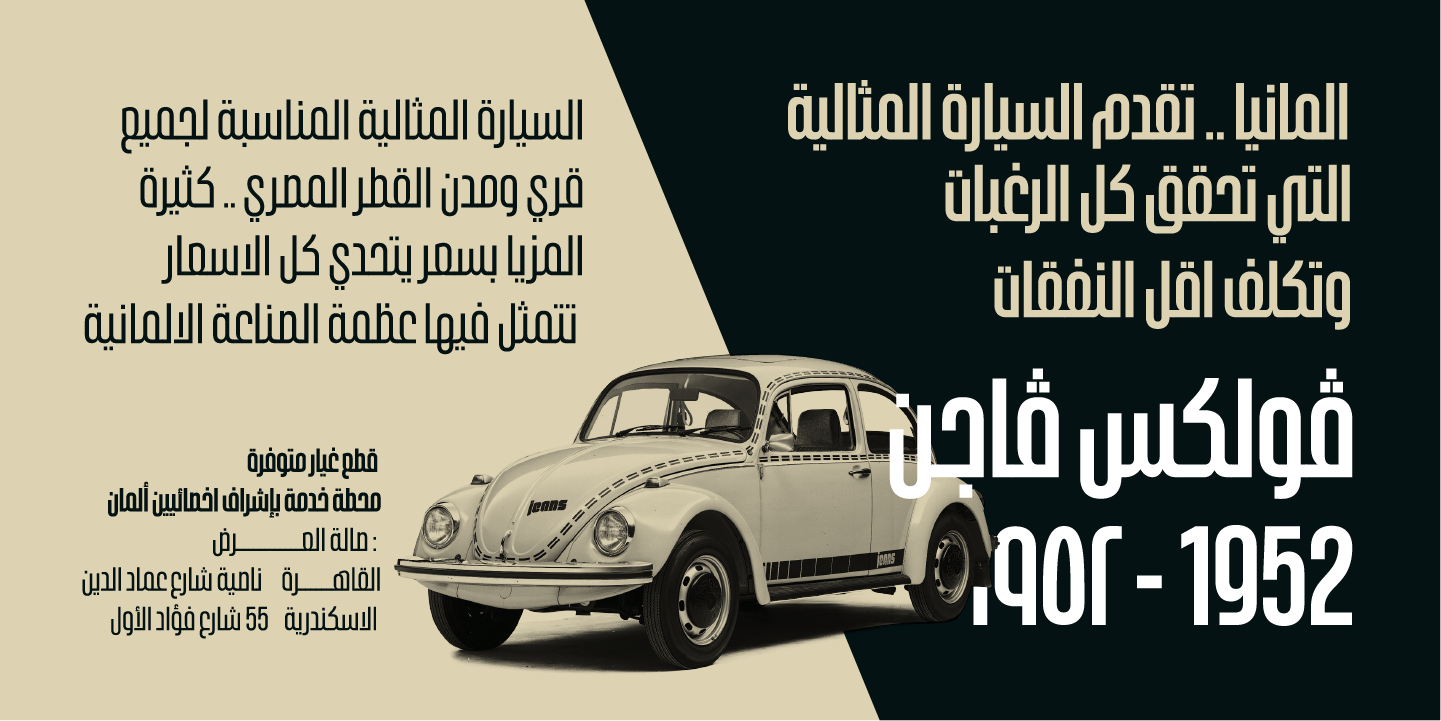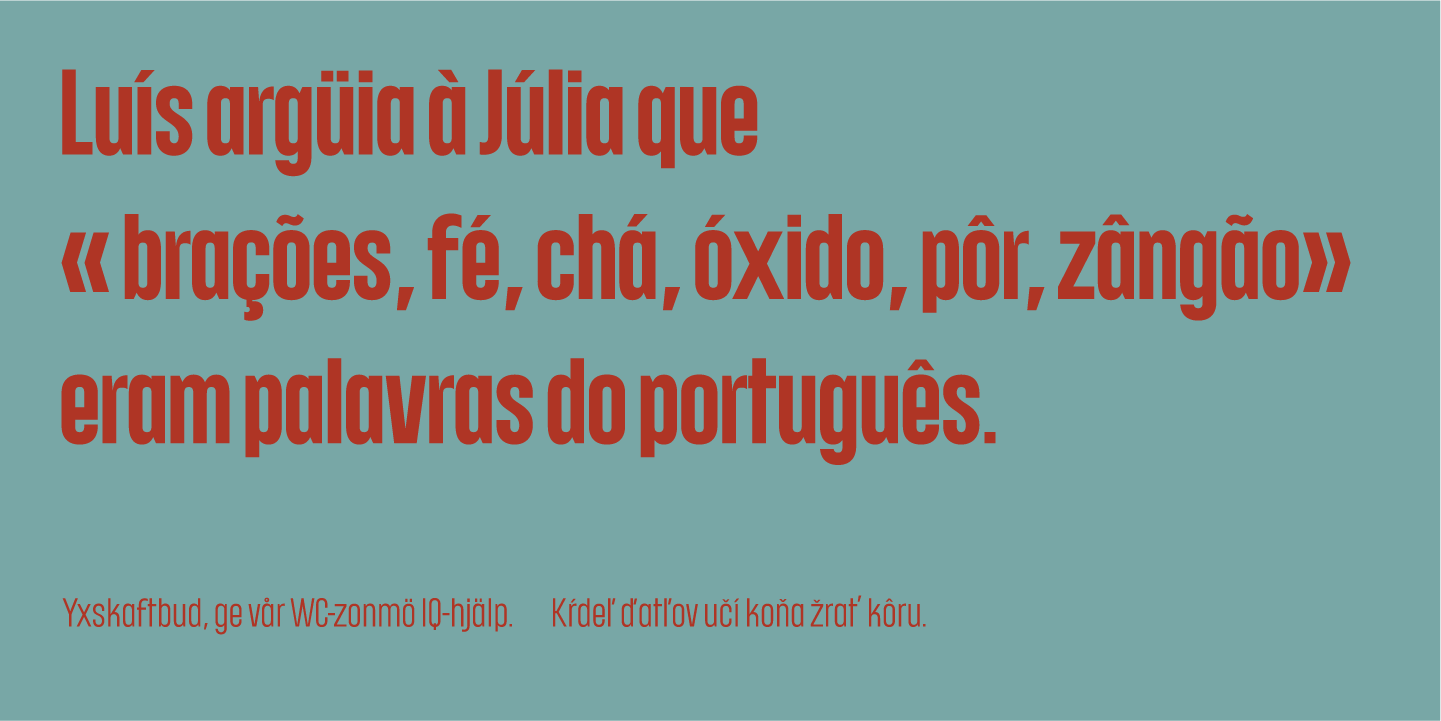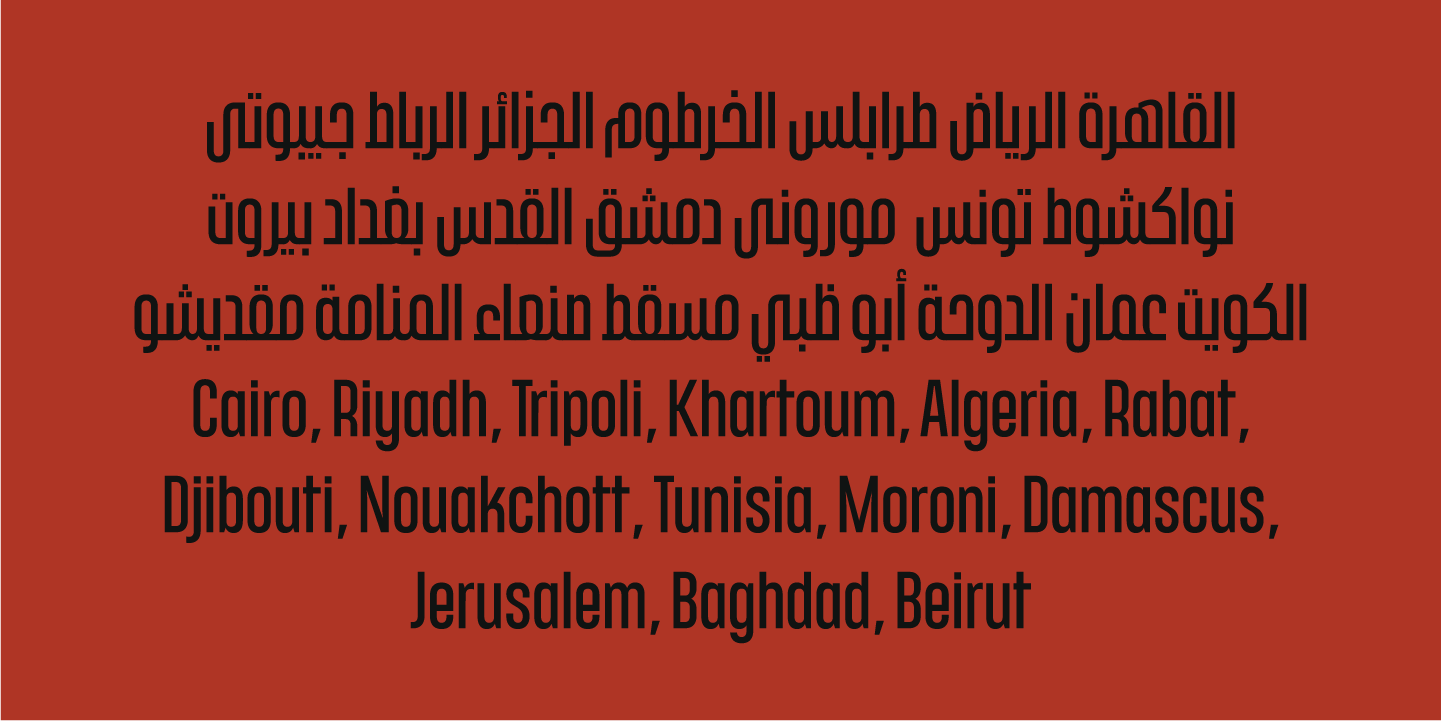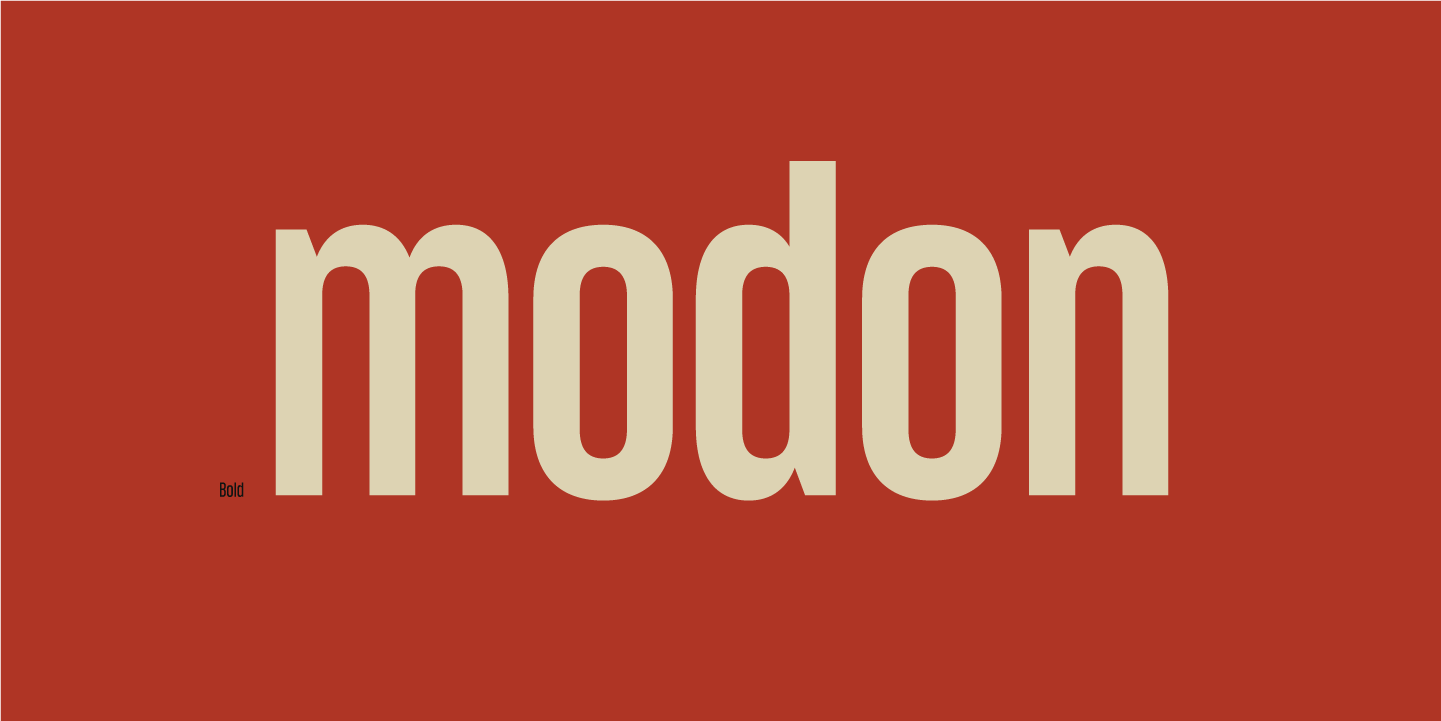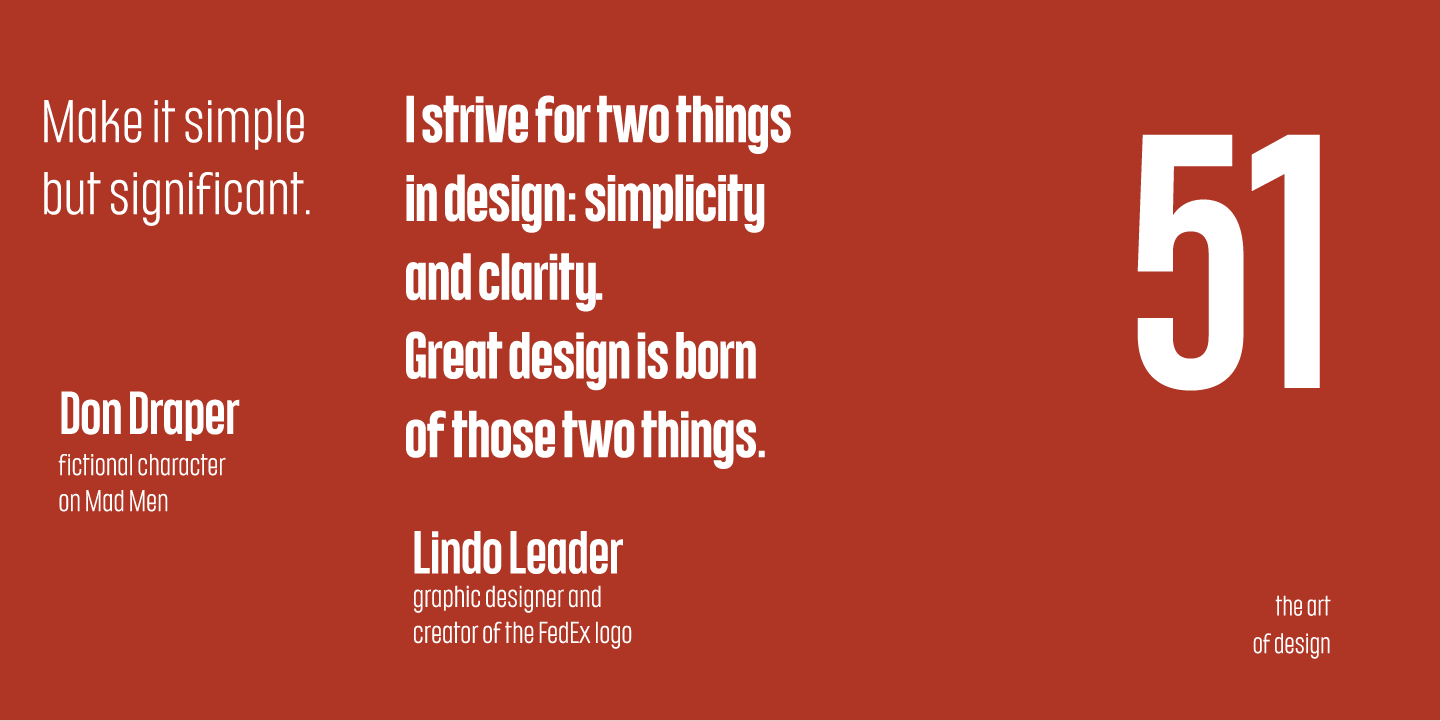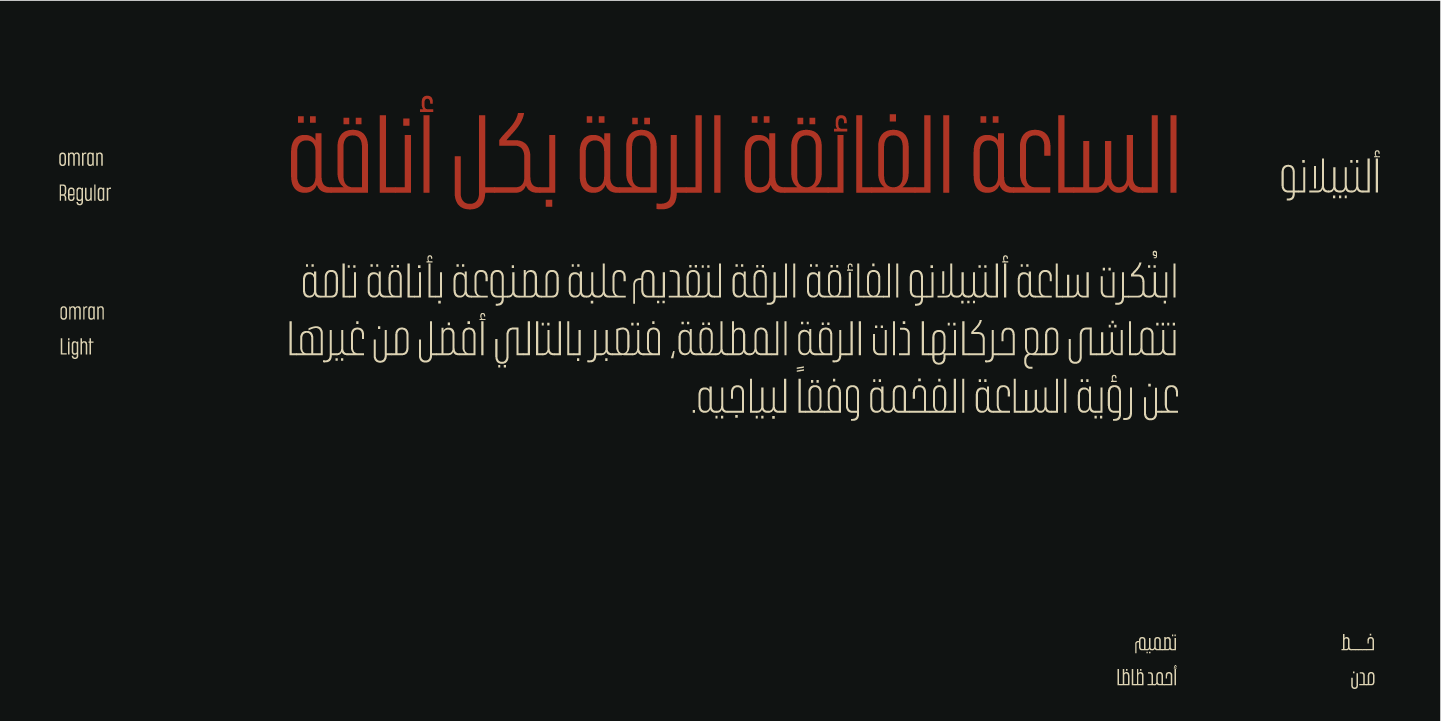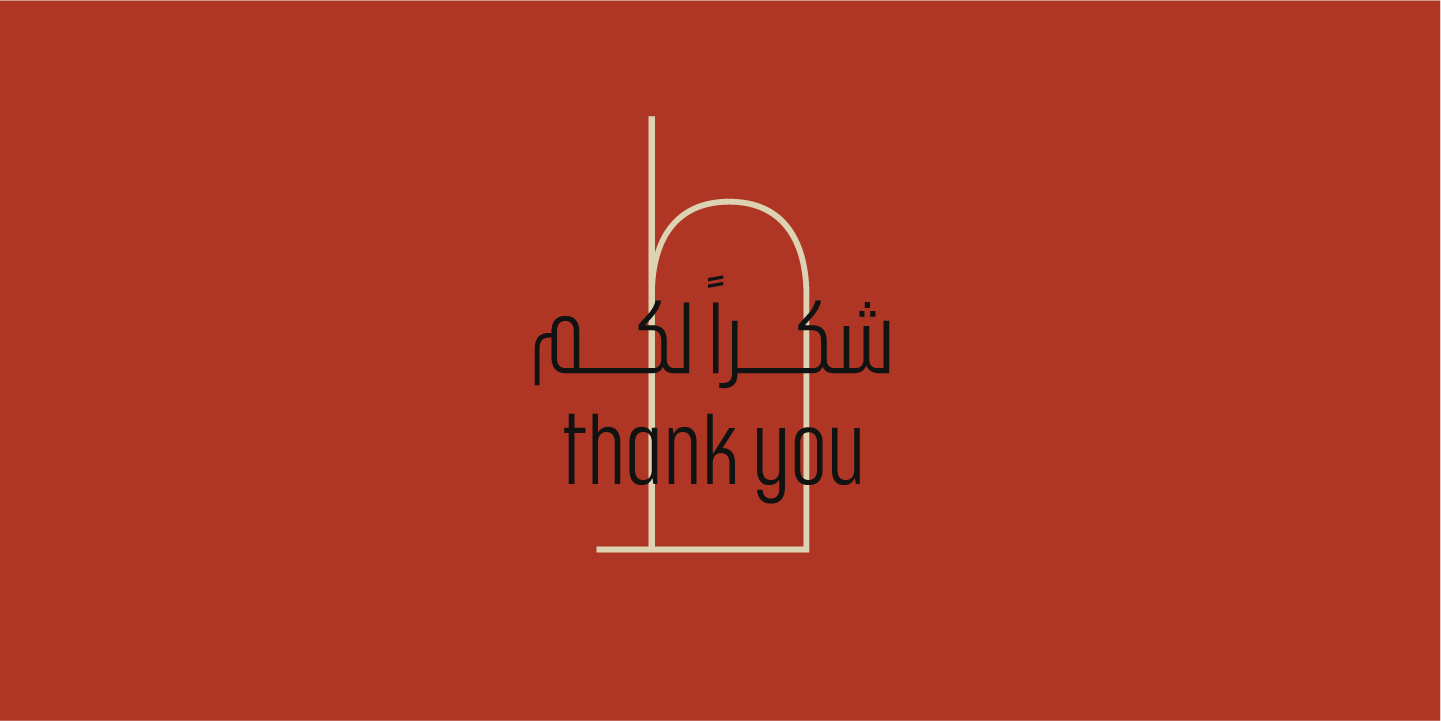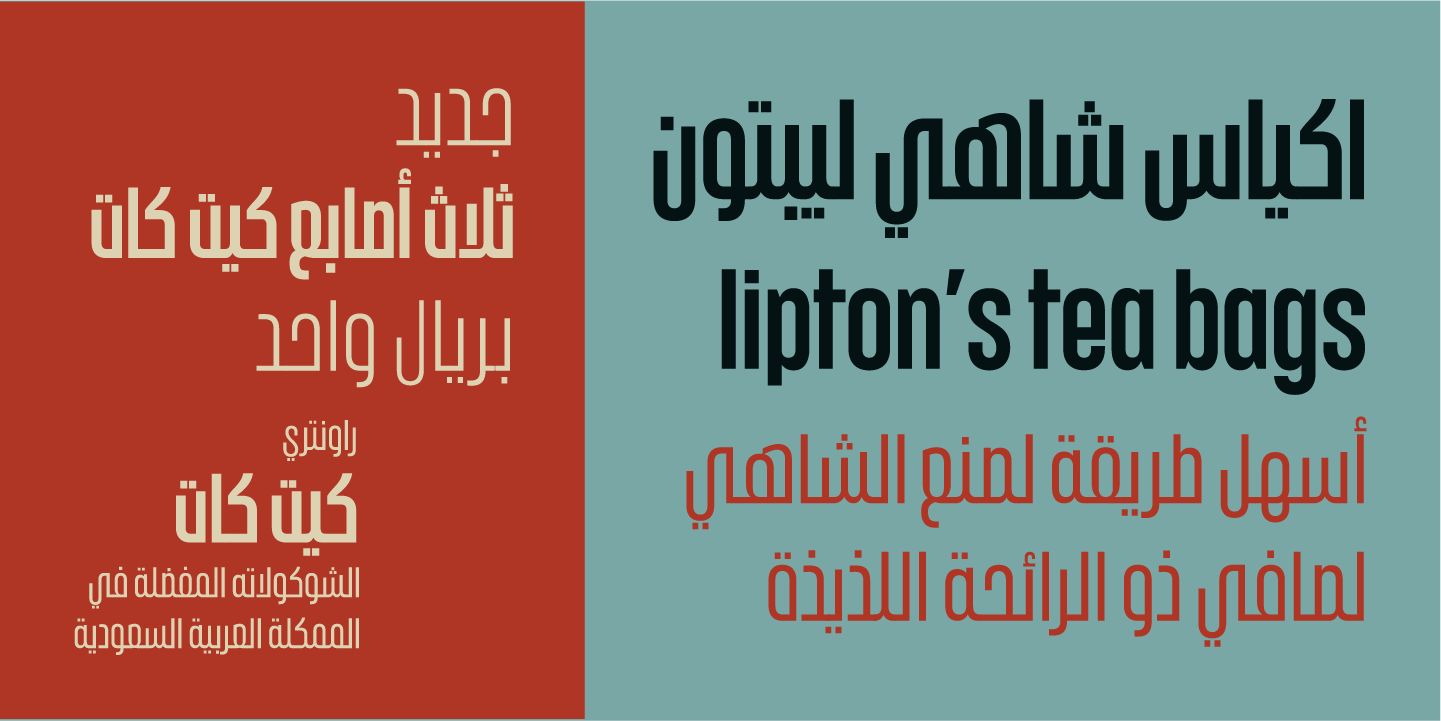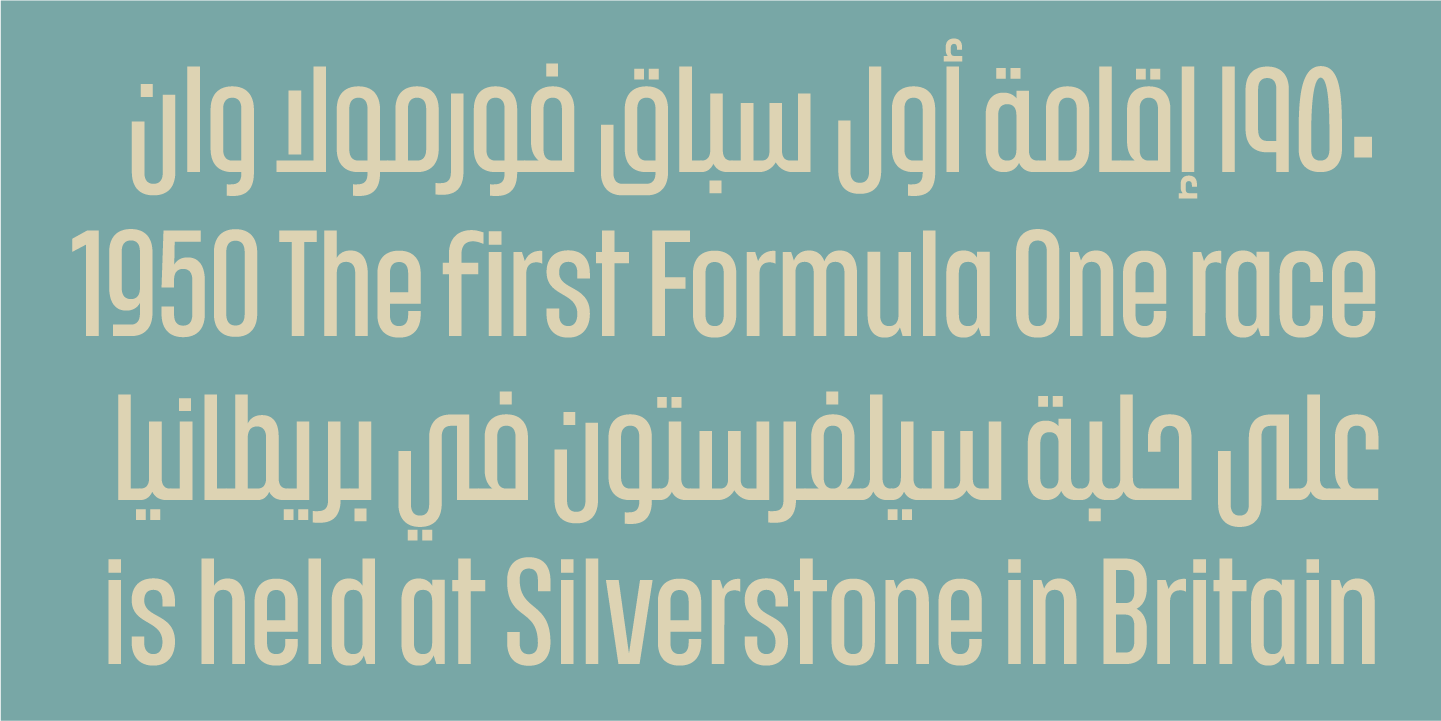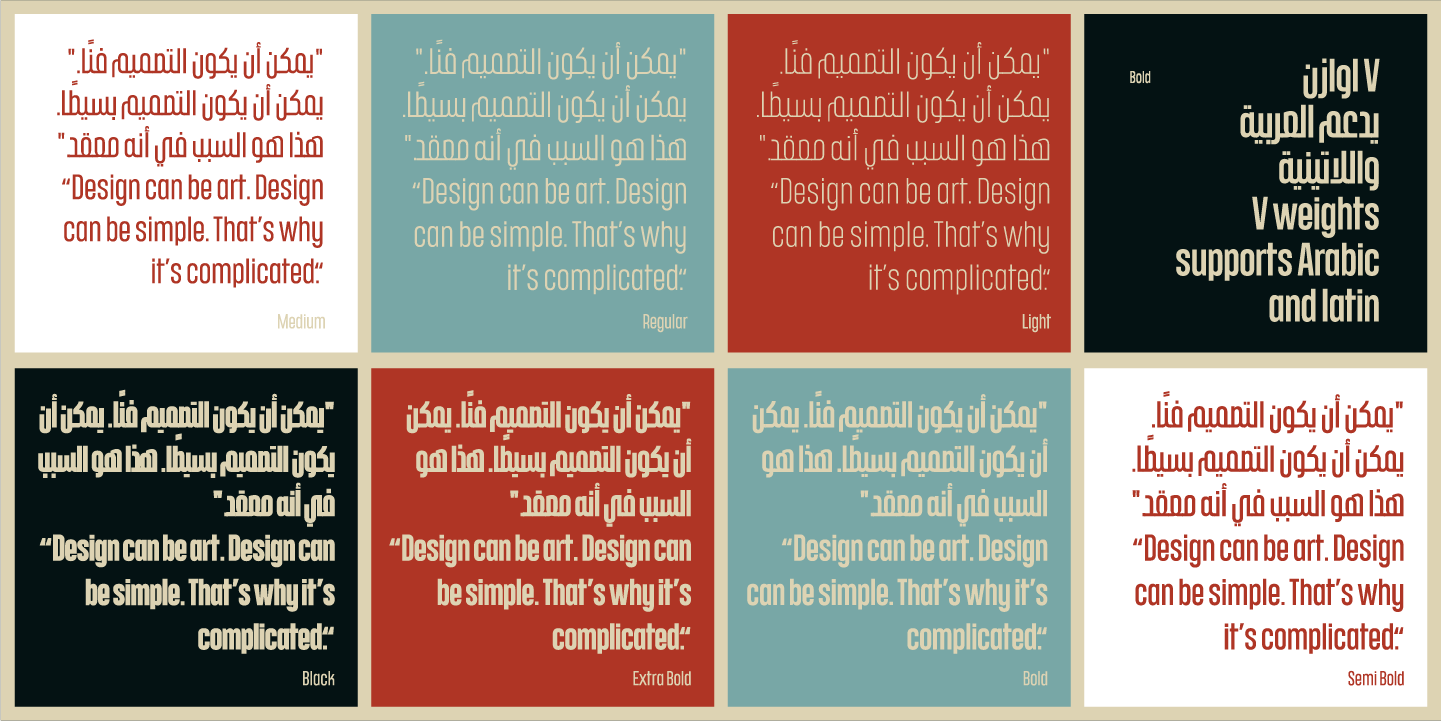
Modon typeface - خط مدن الطباعي
Modon Modon is a bold condensed display Arabic and Latin typeface that has a very particular appearance. It combines the characteristics of different genres, While its design is influenced by Kufic and the Naskh style. It’s a perfect choice for bold headlines, oversize typography, fashion logos, branding, identity, website design, album art, covers, posters, advertising, etc.